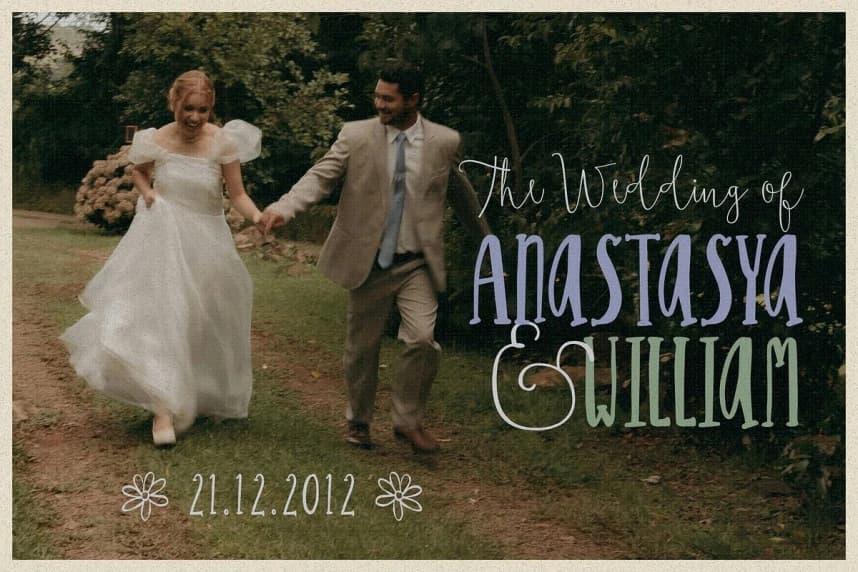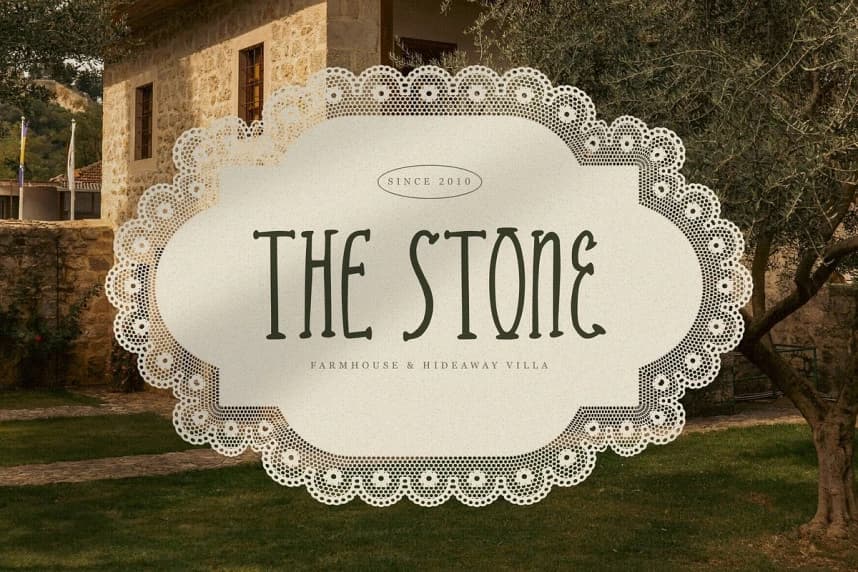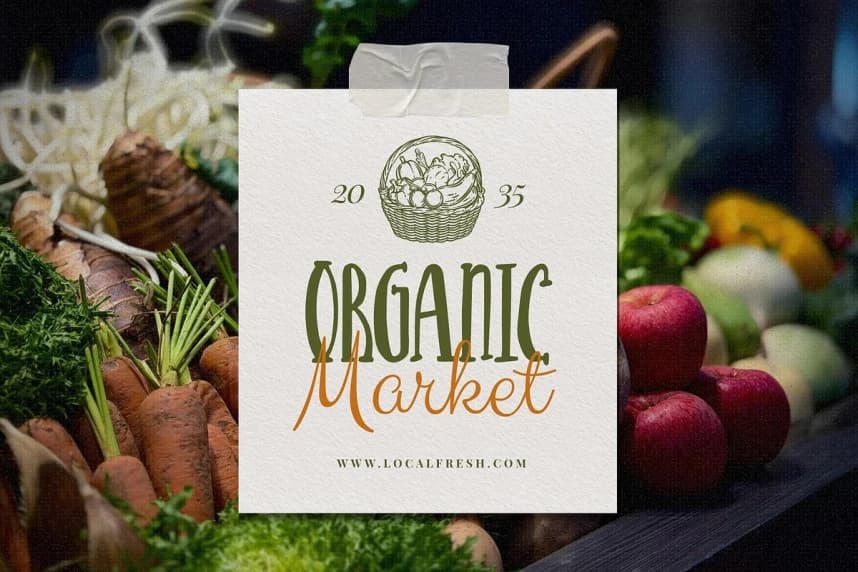
Garden Stories Font
Garden Stories Font. The tall playful letters bring a natural handmade feel, like handwritten notes from a tiny countryside cottage. With regular and bold styles included, this font is perfect for farmhouse branding